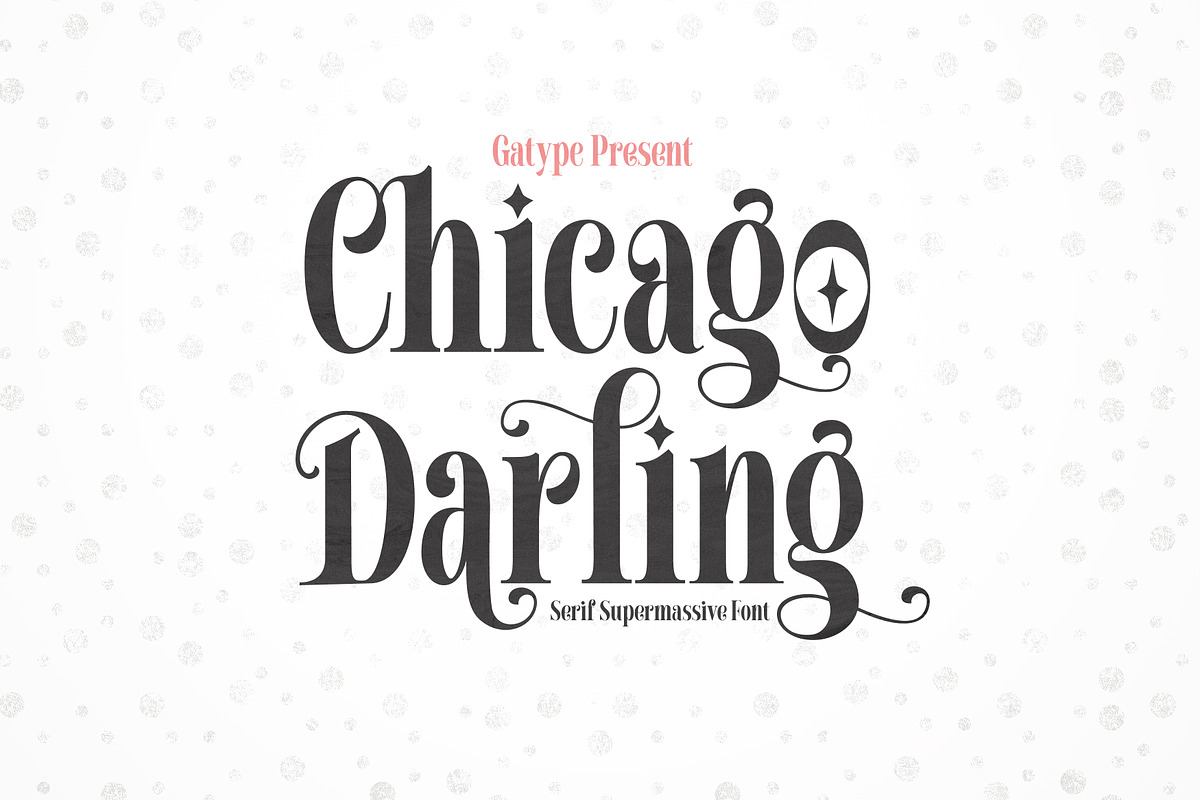
The Chicago Darling Serif Font Free Download is a bold and sophisticated typeface designed to bring a touch of elegance and charm to your designs. With its classic serif style and strong presence, this font is perfect for creating impactful logos, branding, posters, and editorial layouts. Whether you're designing for a luxury brand, an event, or a modern creative project, Chicago Darling adds a refined and stylish touch to your work.
Chicago Darling Serif Font Free Download is ideal for designers looking to create a blend of modern and classic typography. Perfect for high-end branding, advertisements, and any creative project requiring strong, stylish typography, this font will elevate your designs with its bold and elegant appearance. Download it today and infuse your creative work with the sophistication of Chicago Darling!